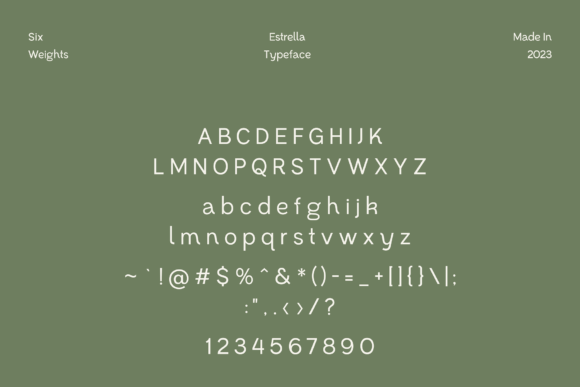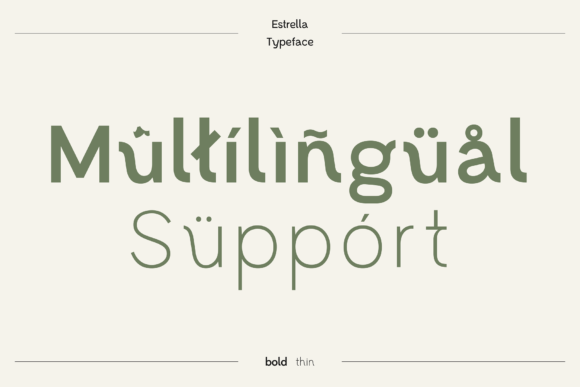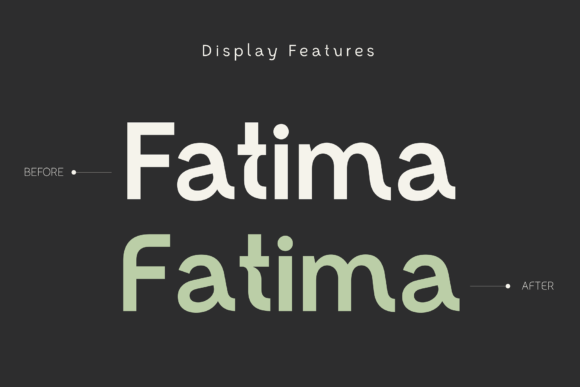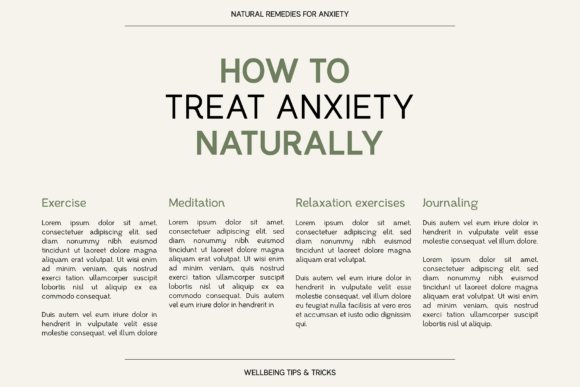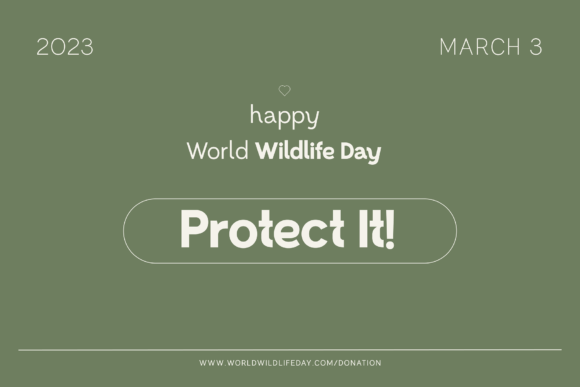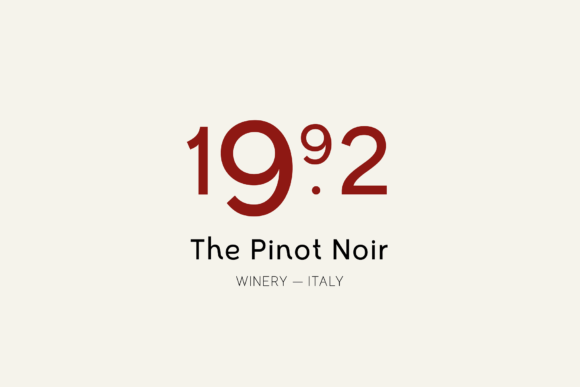
The Perfect Storm of Creativity
It’s that moment when a design concept comes together in a flash of inspiration. The colors, the layout, the typography – everything falls into place, and you know you’ve created something special. For designers, this moment is what drives us to push the boundaries of creativity and produce work that truly stands out. And that’s where the Estrella Font comes in – a stunning sans serif typeface that’s the perfect tool for bringing your ideas to life.
This versatile font is designed to add a touch of modernity and sophistication to any project, making it an ideal choice for logos, branding, websites, and print materials. With its clean and minimal design, the Estrella Font ensures that your work is not only visually appealing but also highly readable, making it perfect for both headlines and body text.
Estrella Font Key Features
- Unique Characteristics: The font features a distinctive, modern design with a blend of geometric and organic elements, creating a unique visual identity for any project.
- Font Weight: Estrella Font includes multiple font weights, from Light to Bold, allowing designers to achieve the desired level of emphasis and contrast in their designs.
- Language Support: The font supports a wide range of languages, including Latin, Cyrillic, and Greek alphabets, making it a versatile choice for international projects.
Estrella Font Review
Estrella Font is a stunning sans-serif font that has caught my eye with its elegant and modern design. ✨ I love how it effortlessly balances minimalism with a touch of sophistication, making it perfect for a wide range of projects, from tech startups to luxury brands. ✨ The font’s geometric shapes and clean lines give it a unique, high-end feel that’s hard to resist.
However, as beautiful as Estrella Font is, it does have some limitations. ⚠️ For one, the font may not be suitable for projects that require a more playful or casual tone, as its sleek design can come across as too formal. ⚠️ Additionally, the font’s sans-serif style may not be the best choice for projects that require a lot of body text, as it can be a bit too busy and overwhelming.
- High-end, modern design
- Perfect for tech startups, luxury brands, and other projects that require a sophisticated look
- Stunning sans-serif style with geometric shapes and clean lines
- Might not be suitable for projects that require a playful or casual tone
- Might not be the best choice for projects with a lot of body text
Overall, Estrella Font is a beautiful and versatile font that’s perfect for projects that require a touch of elegance and sophistication. While it may have some limitations, its unique design and high-end feel make it a standout choice for any designer looking to add some visual interest to their project.
Some common use cases for Estrella Font include:
- Logo design and branding
- Decorative elements in designs
Remember to experiment with different font sizes, colors, and styles to get the most out of Estrella Font and make it a unique element in your designs.